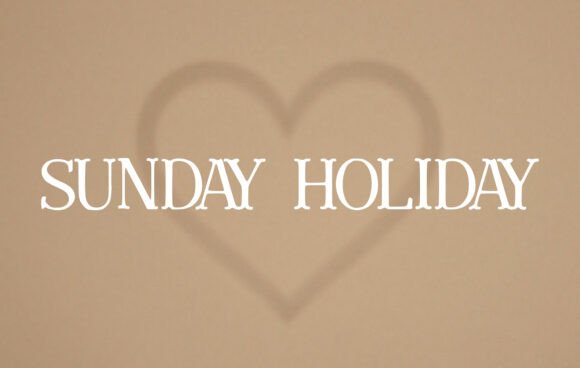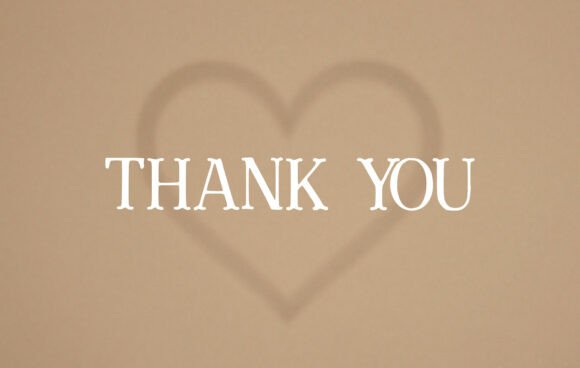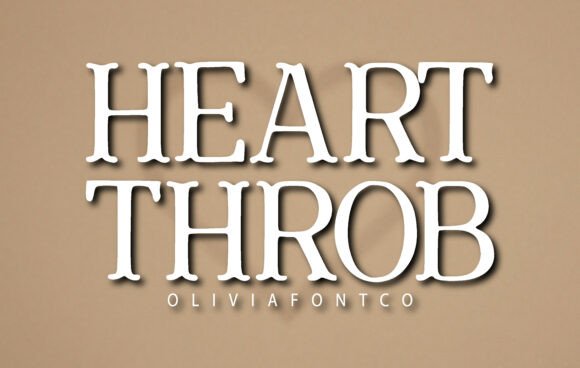
Introducing Heart Throb Font: A Timeless Classic for Professional Communications
In the world of typography, a font can make all the difference in conveying the right tone and personality for a brand or project. For designers and crafters looking for a robust and classic serif font that commands respect while maintaining a friendly, approachable warmth, look no further than Heart Throb. This elegant typeface is designed to bring a sense of stability and “heart” to professional communications and branding projects, making it an ideal choice for editorial layouts, corporate identities, and traditional publishing.
The Characteristics of Heart Throb Font
Heart Throb font features sturdy stems and elegant, bracketed serifs that provide excellent legibility across both print and digital mediums. The balanced weight of the font ensures that it remains clear even at smaller sizes, making it perfect for body text or detailed captions. The classic serif design of Heart Throb exudes a sense of tradition and reliability, while its friendly and approachable warmth adds a touch of personality to any project.
Key Features of Heart Throb Typeface
- Robust and Classic Design: Heart Throb font boasts a sturdy and timeless design that commands respect and exudes a sense of stability.
- Elegant, Bracketed Serifs: The elegant serifs of Heart Throb provide excellent legibility and add a touch of sophistication to any project.
- Balanced Weight: The balanced weight of the font ensures that it remains clear even at smaller sizes, making it perfect for body text or detailed captions.
- Excellent Legibility: Heart Throb font features excellent legibility across both print and digital mediums, making it an ideal choice for a wide range of applications.
Applications of Heart Throb Font
Heart Throb font is a versatile typeface that can be used in a variety of applications, including:
- Editorial Layouts: Heart Throb font is perfect for editorial layouts, such as magazines, newspapers, and books, where a classic and elegant design is required.
- Corporate Identities: The robust and classic design of Heart Throb font makes it an ideal choice for corporate identities, such as logos, letterheads, and business cards.
- Traditional Publishing: Heart Throb font is suitable for traditional publishing, such as book covers, titles, and interior text.
Why Choose Heart Throb Font?
There are many reasons why designers and crafters should choose Heart Throb font for their projects. Here are a few:
- Timeless Design: Heart Throb font features a timeless design that will not go out of style anytime soon.
- Versatility: The font is versatile and can be used in a variety of applications, from editorial layouts to corporate identities.
- Excellent Legibility: Heart Throb font features excellent legibility, making it perfect for body text or detailed captions.
- Professional Look and Feel: The font exudes a sense of professionalism and stability, making it ideal for branding projects and professional communications.
In conclusion, Heart Throb font is a robust and classic serif font that commands respect while maintaining a friendly, approachable warmth. With its elegant design, balanced weight, and excellent legibility, Heart Throb font is the perfect companion for editorial layouts, corporate identities, and traditional publishing. Whether you’re a designer or crafter looking for a font that can bring a sense of stability and “heart” to your professional communications and branding projects, Heart Throb font is an excellent choice.